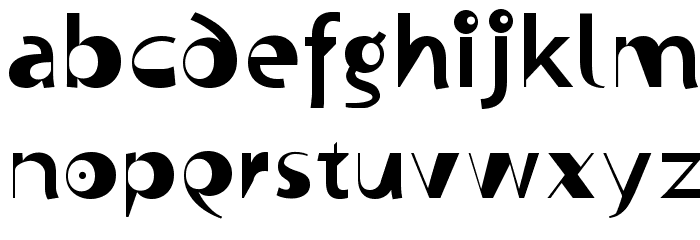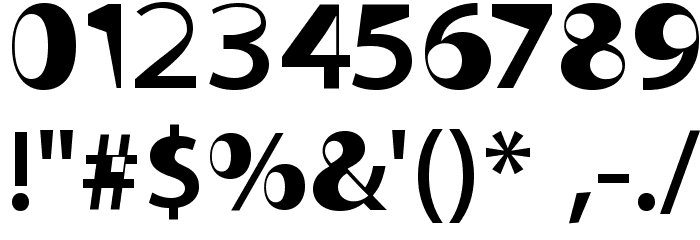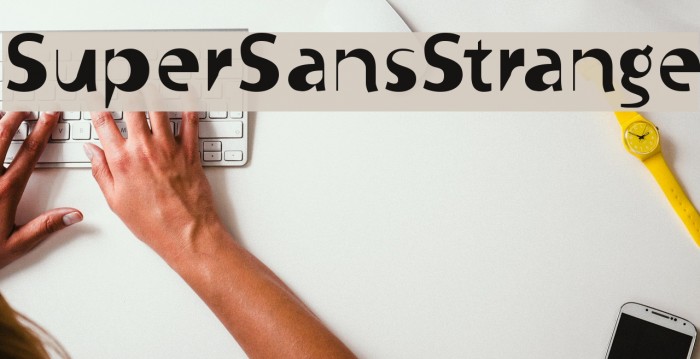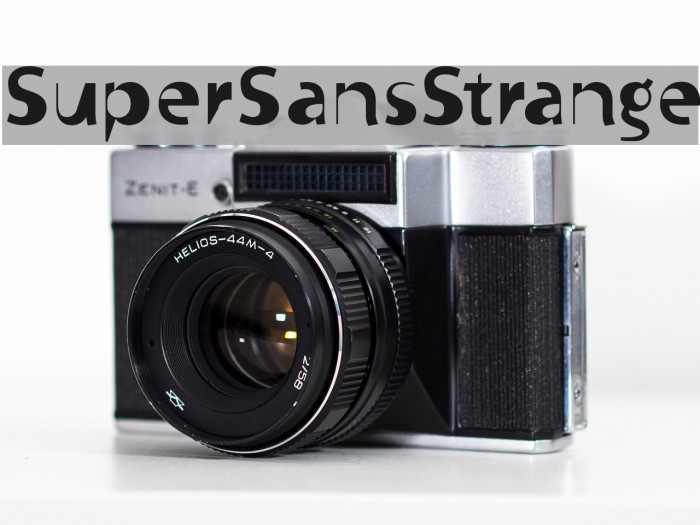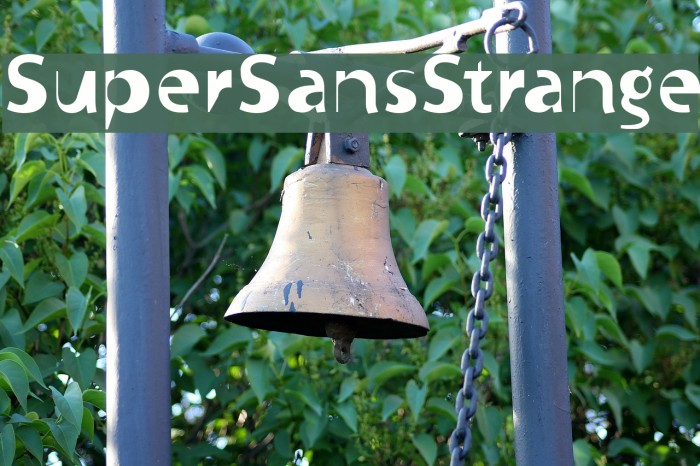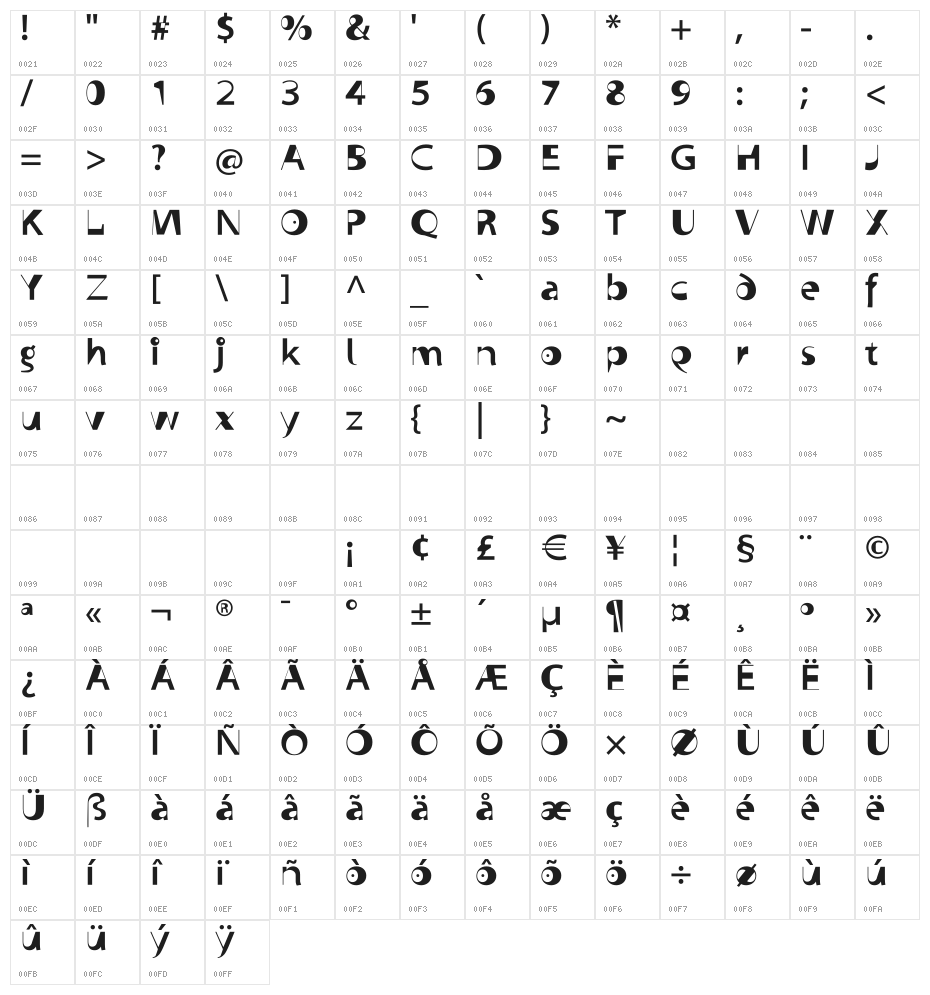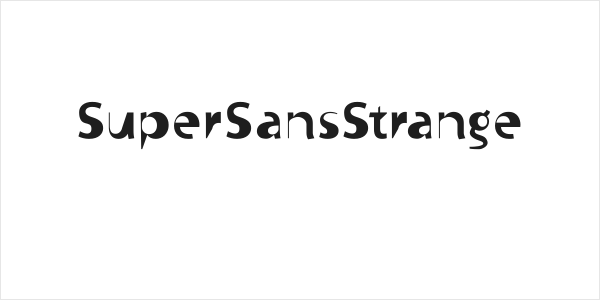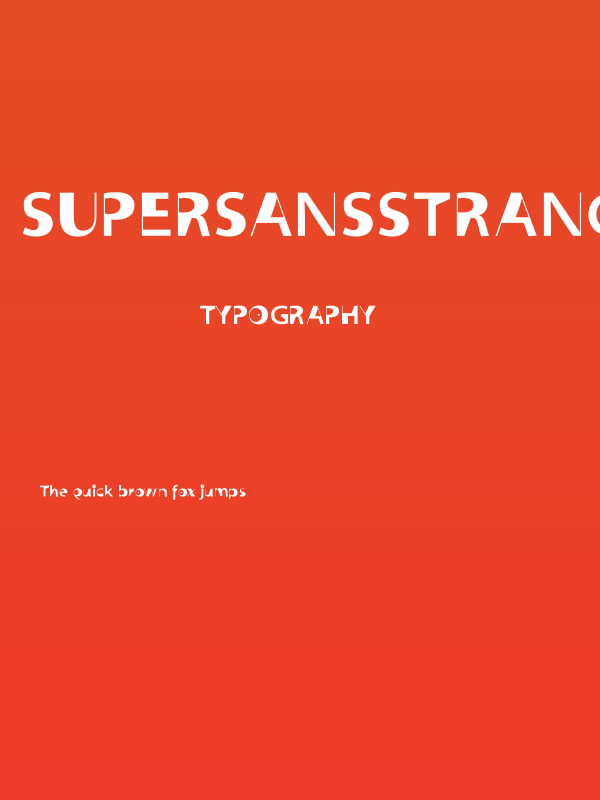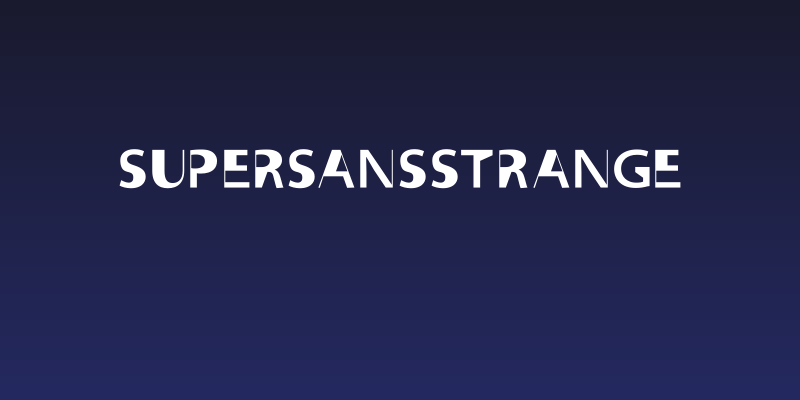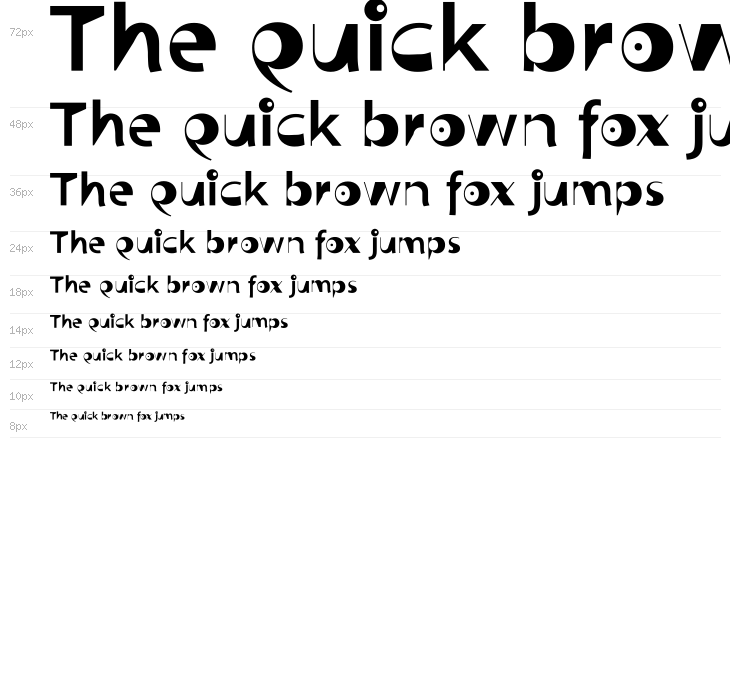
SuperSansStrange Font
This font features a unique and playful design with a modern twist. The uppercase letters are bold and slightly geometric, with some characters like 'Q' and 'R' having distinctive, quirky elements. The lowercase letters maintain a consistent style, with rounded forms and occasional unexpected curves, adding to the font's whimsical nature. The numerals are bold and clear, with a slight slant that complements the overall style. Special characters are well-integrated, maintaining the playful yet modern aesthetic. This font stands out with its creative flair, making it suitable for eye-catching designs.
A playful, modern font with bold, geometric elements and whimsical curves.
- Proposed Projects: Ideal for branding, posters, and creative projects that require a distinctive and modern touch.